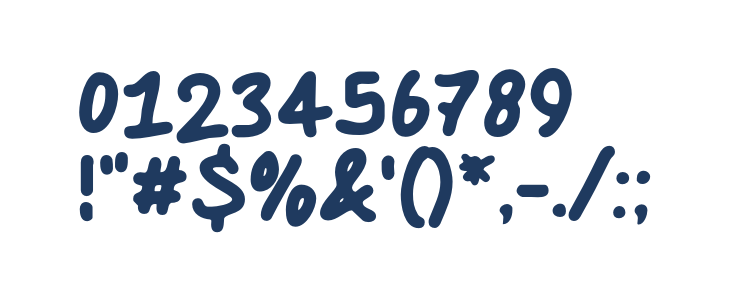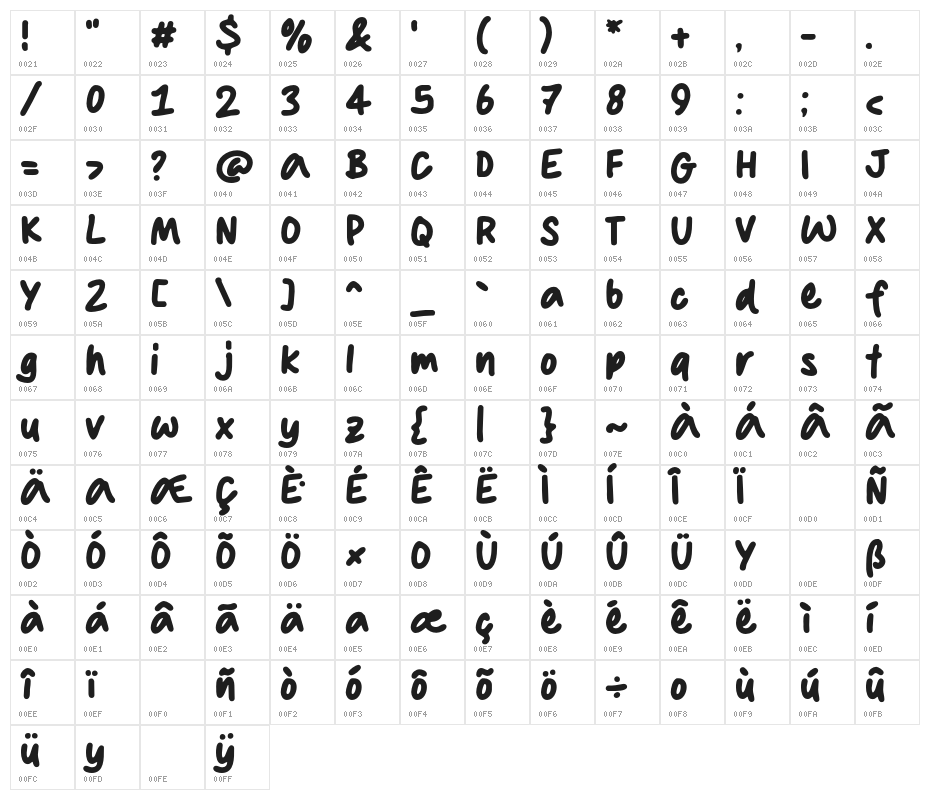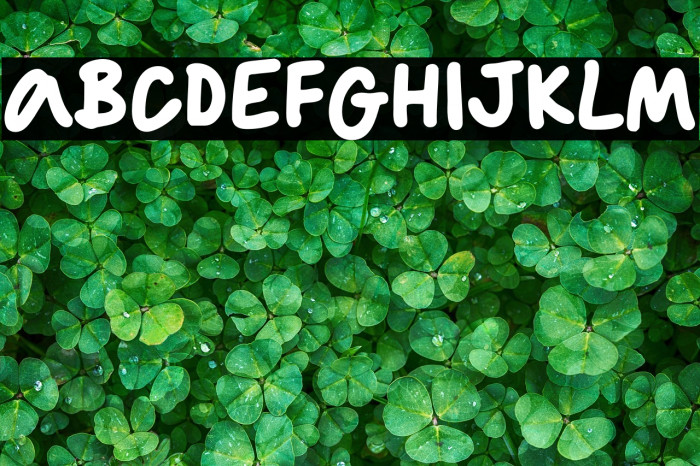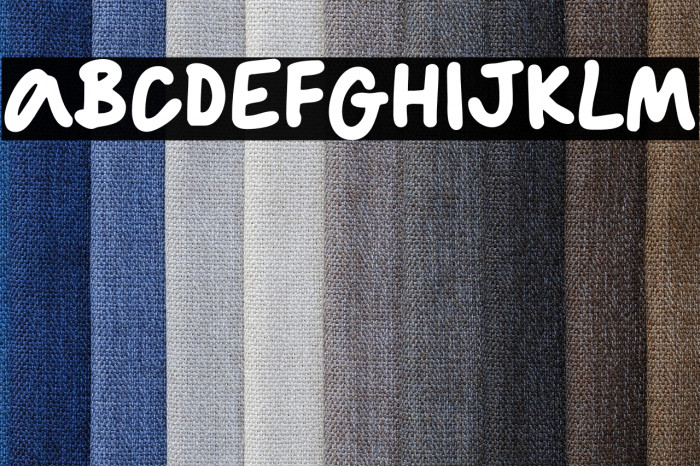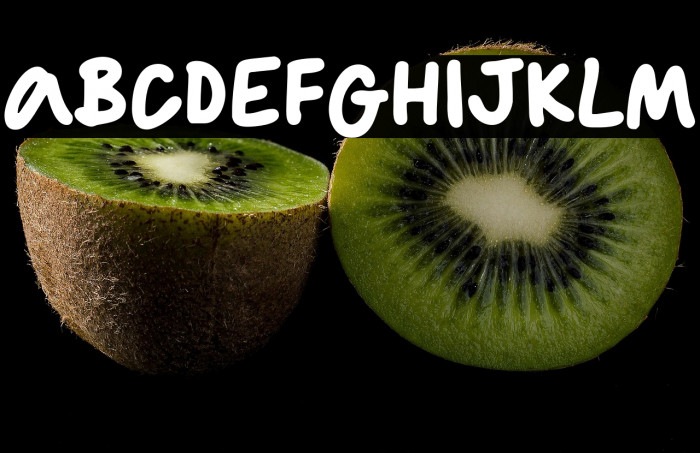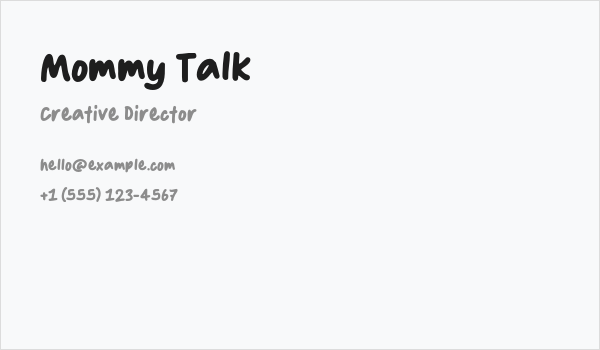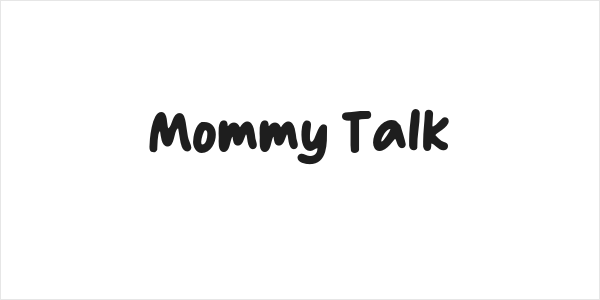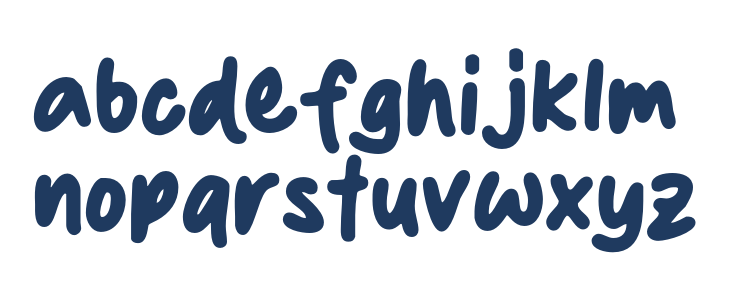
Mommy Talk Font
Mommy Talk Description
This playful and bold font features rounded, thick strokes that give it a friendly and approachable appearance. The characters are slightly irregular, adding a hand-drawn feel that enhances its casual and informal style. The uppercase and lowercase letters maintain a consistent weight, while the numerals and special characters are designed to match the overall aesthetic. Its boldness ensures high readability, making it suitable for various creative applications.
| Proposed Projects | Ideal for children's books, playful branding, greeting cards, and casual invitations. |